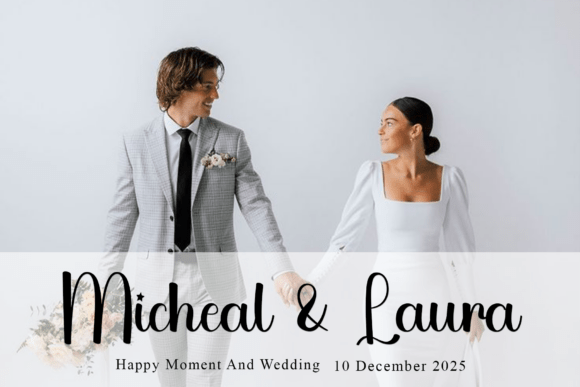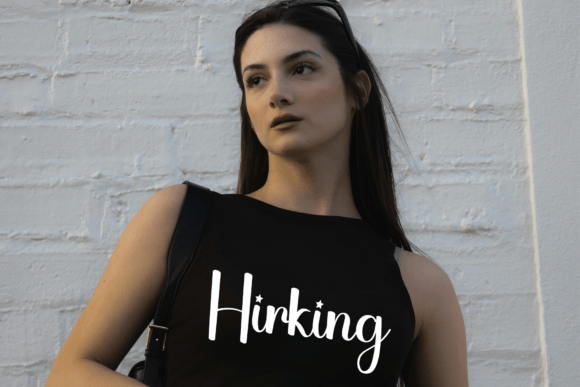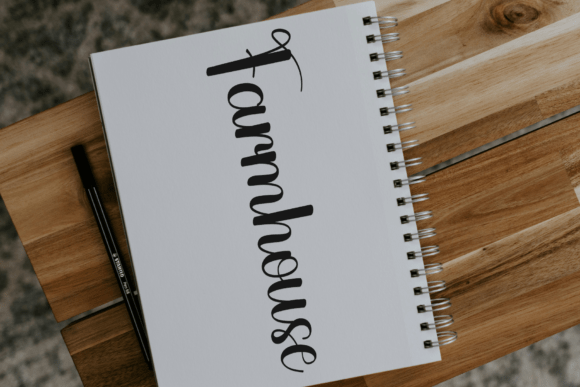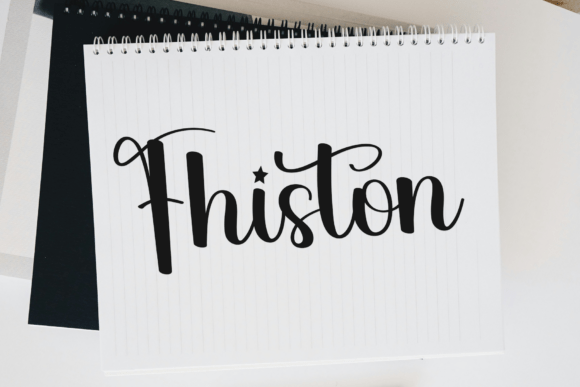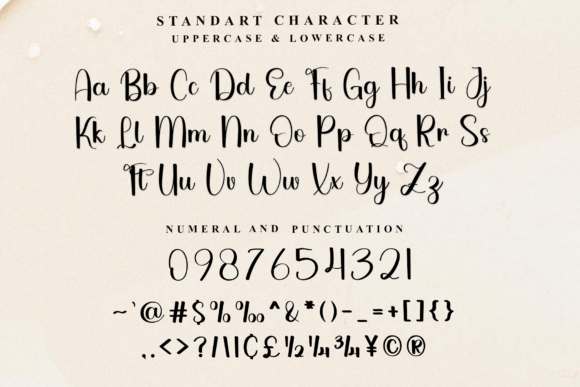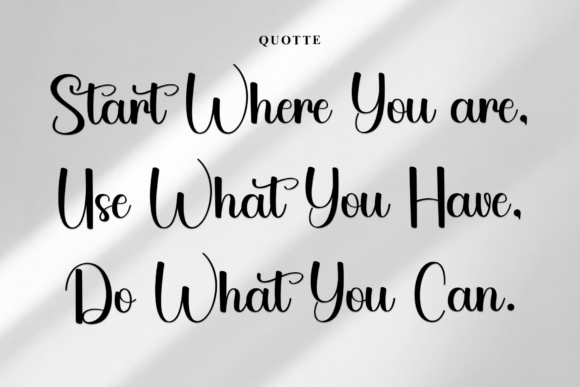
Discover the Charm of Chubby Font: Elevate Your Designs with a Unique Touch
In the world of typography, fonts play a crucial role in conveying messages, expressing creativity, and capturing the audience’s attention. Among the numerous fonts available, Chubby Font stands out for its distinctive and soft appearance, making it a favorite among designers and crafters. In this article, we’ll explore the features, benefits, and uses of Chubby Font, and why it’s an excellent addition to your design toolkit.
What is Chubby Font?
Chubby Font is a beautifully crafted typeface, characterized by its soft and unique touch. Its distinctive strokes give it a special character, making it both meaningful and versatile for future use. The font’s design is carefully crafted to provide a natural and eye-catching appearance, perfect for a wide range of design projects.
Key Features of Chubby Font
- Unique and Soft Appearance: Chubby Font boasts a distinctive and soft appearance, setting it apart from other fonts.
- Versatile and Meaningful: The font’s design makes it suitable for various design projects, crafts, and creative works.
- Wide Range of Characters: Chubby Font comes with a variety of characters, ensuring that you have ample options for your design needs.
Benefits of Using Chubby Font
So, why should you choose Chubby Font for your design projects? Here are some benefits that make it an excellent choice:
- Enhance Your Designs: Chubby Font’s unique and soft appearance will add a touch of elegance and sophistication to your designs.
- Appeal to a Wide Audience: The font’s natural and eye-catching appearance makes it perfect for appealing to a wide range of audiences across different artistic and creative fields.
- Perfect for Various Projects: Chubby Font is suitable for a wide range of design projects, including crafts, posters, logos, and more.
Use Cases for Chubby Font
Chubby Font’s versatility makes it an excellent choice for various design projects, including:
- Design Projects: Use Chubby Font to add a unique touch to your posters, brochures, and other visual materials.
- Crafts: The font is perfect for craft projects, such as handmade cards, gift tags, and other paper crafts.
- Logos and Branding: Chubby Font’s distinctive appearance makes it an excellent choice for logos and branding materials.
Tips for Using Chubby Font Effectively
To get the most out of Chubby Font, here are some tips for using it effectively:
- Pair it with Other Fonts: Experiment with pairing Chubby Font with other fonts to create a unique and visually appealing combination.
- Use it for Headings and Titles: Chubby Font’s distinctive appearance makes it perfect for headings and titles, adding a touch of elegance to your designs.
- Experiment with Colors and Textures: Try experimenting with different colors and textures to add depth and interest to your designs.
In conclusion, Chubby Font is a beautiful and eye-catching font that offers a unique touch to your design projects. Its soft and distinctive appearance makes it perfect for a wide range of designs, from crafts to logos and branding materials. With its compatibility with various applications and wide range of characters, Chubby Font is an excellent addition to your design toolkit. So, why not give it a try and elevate your designs with the charm of Chubby Font?